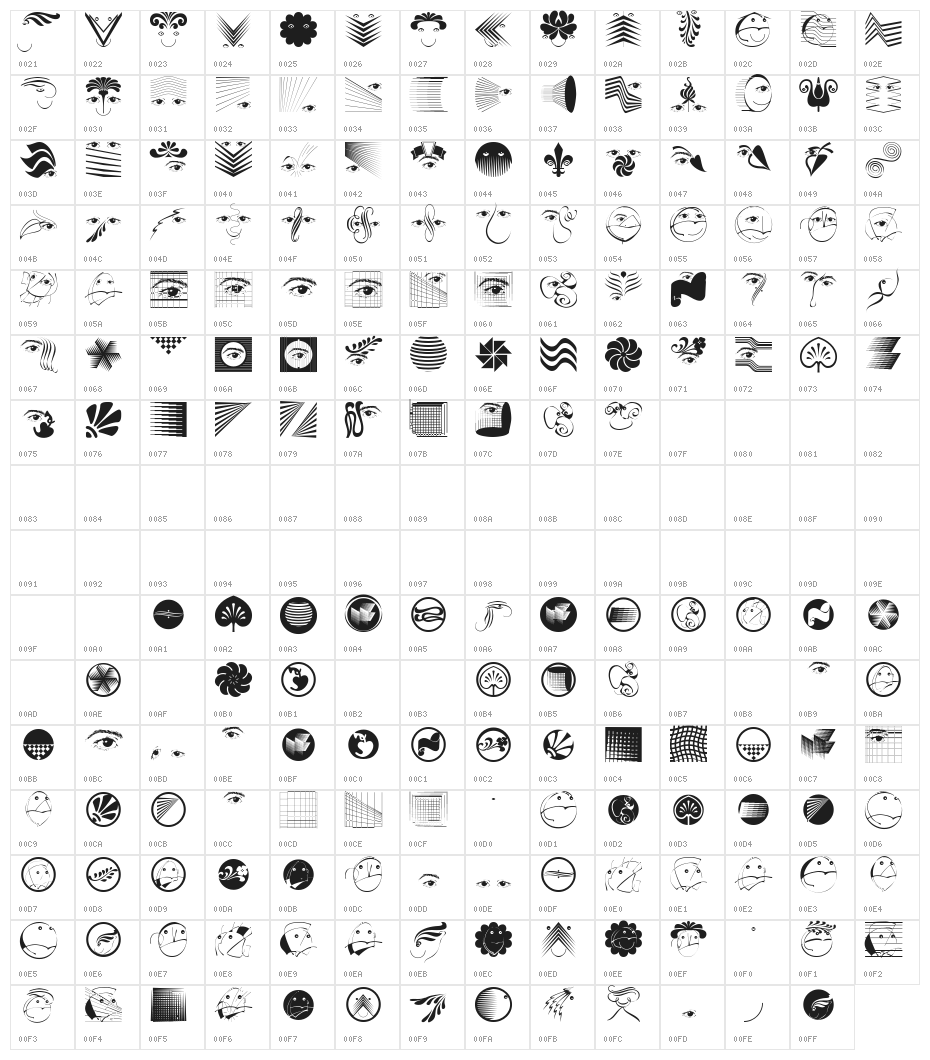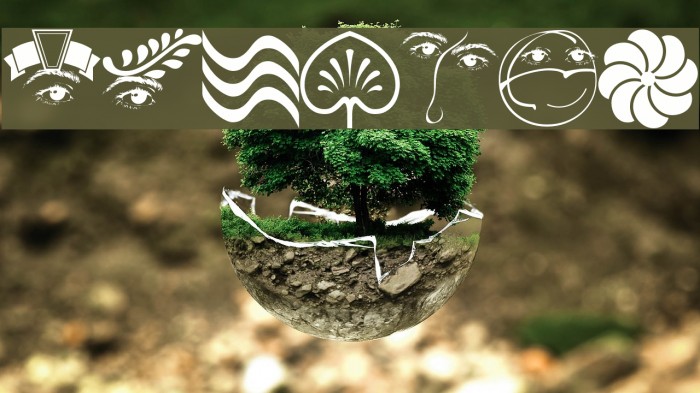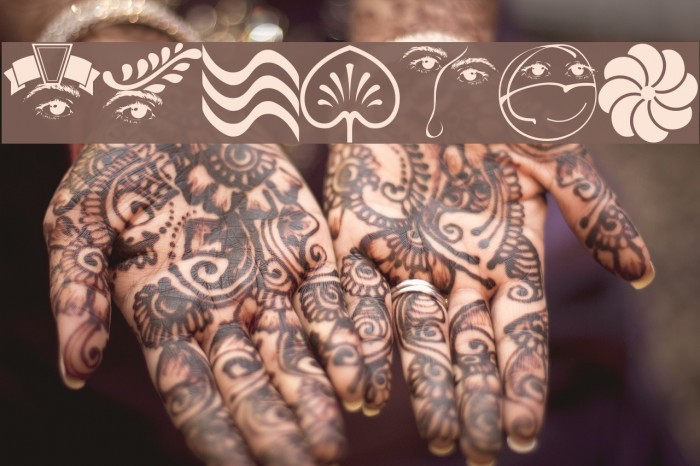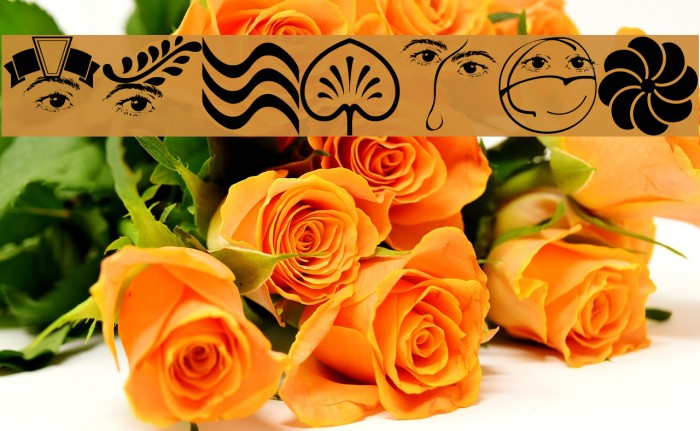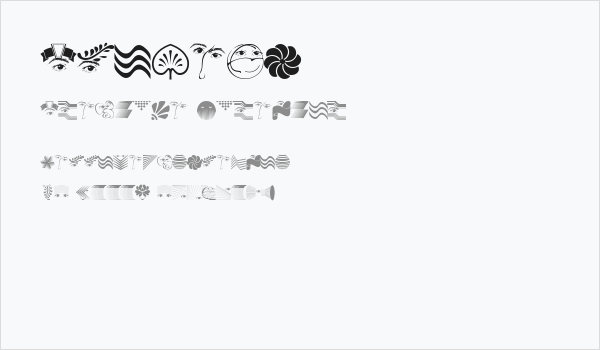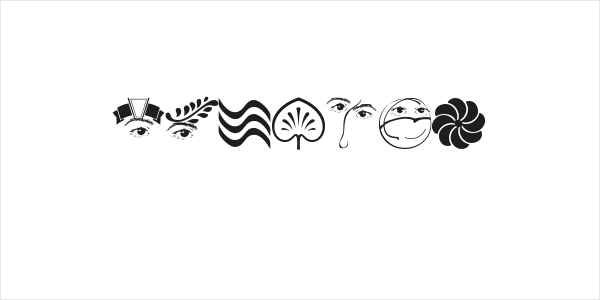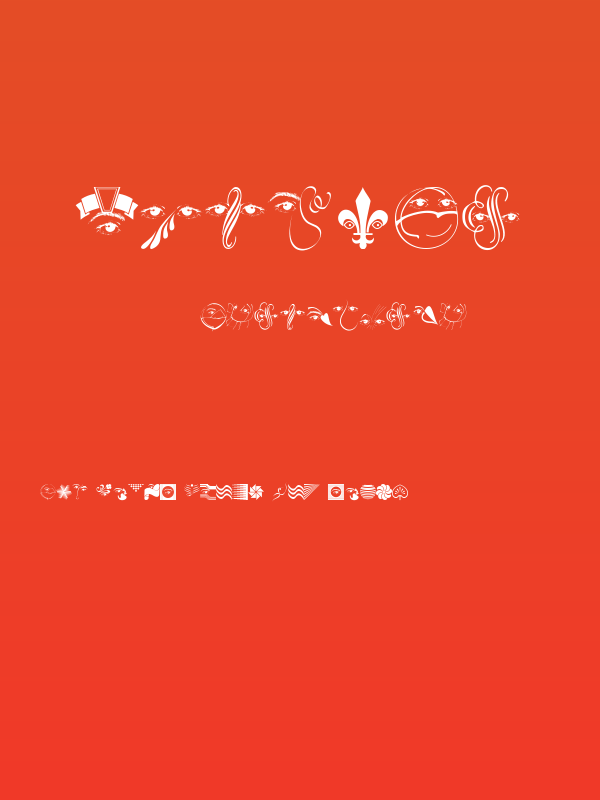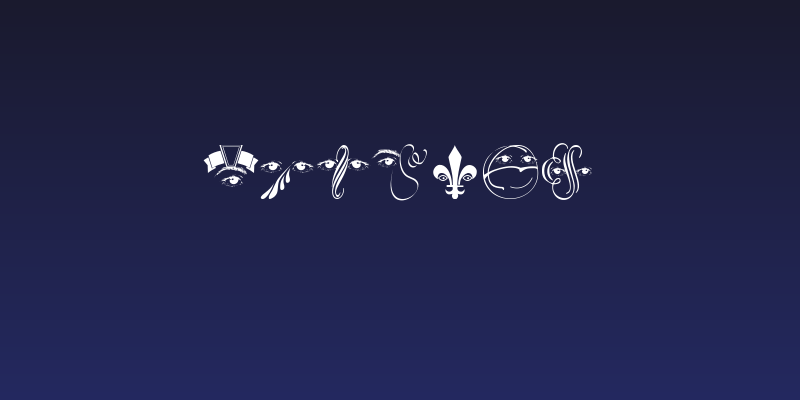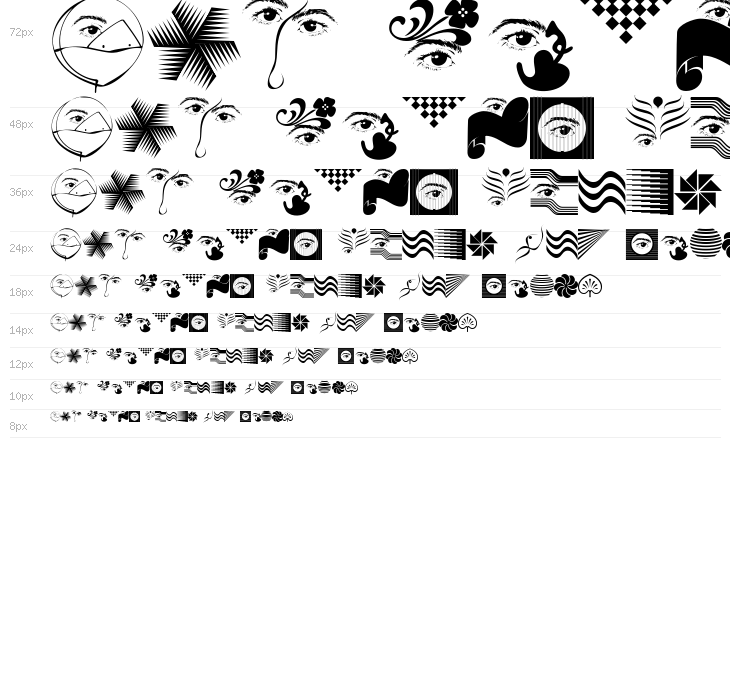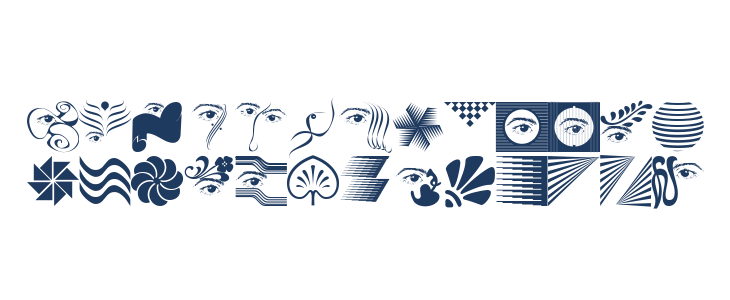
CloseUp Font
A highly decorative and illustrative dingbat font composed of abstract shapes, stylized eyes, faces, and geometric patterns. Each character is unique, blending organic curves with sharp lines and intricate details, resulting in a playful and artistic visual language.
Overall StyleDecorative, Abstract, Playful
Use CaseLogos, Headlines, Decorative elements, Illustrative accents
Proposed ProjectsPosters, album covers, branding for creative industries, editorial illustrations, decorative borders, art projects.